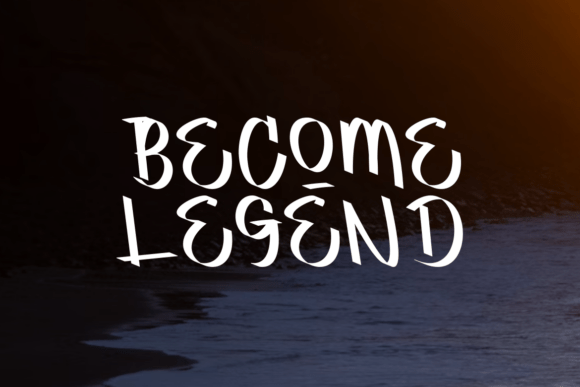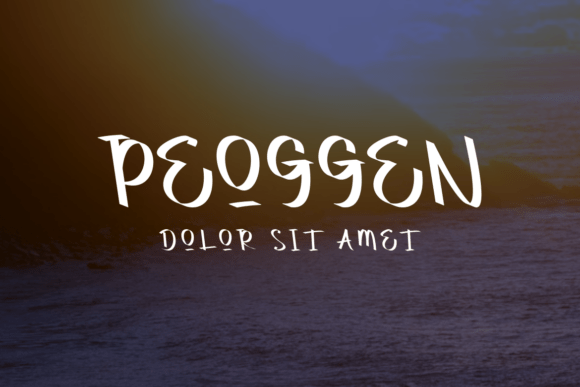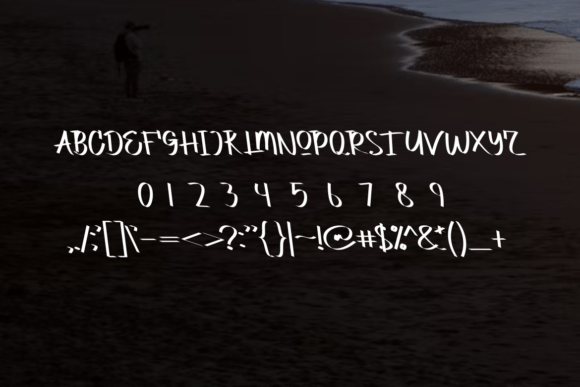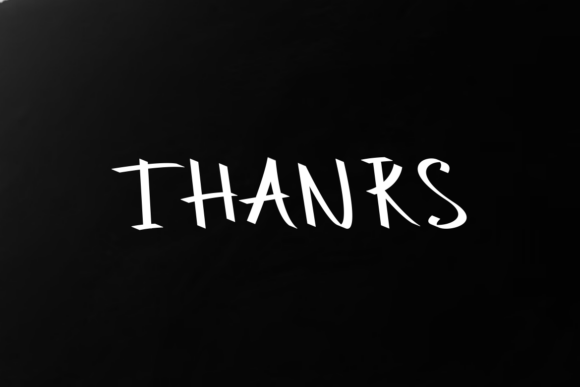
Introduction to Peoggen Font
Peoggen is a modern handwritten font with a playful twist and artistic edge.
Its unique letterforms blend a casual style with a touch of flair, making it great for branding, posters, social media graphics, and creative titles that need a distinctive voice .